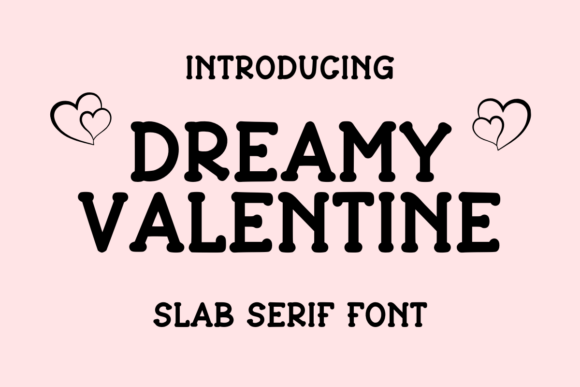
Dreamy Valentine: A Romantic Font for Modern Design
- Limit its use to headlines and accents to avoid visual fatigue.
- Use it in conjunction with simple, modern fonts to create balance.
- Ensure sufficient contrast between the font and background for readability.
- Test it in real-world applications like print and screen to evaluate performance.